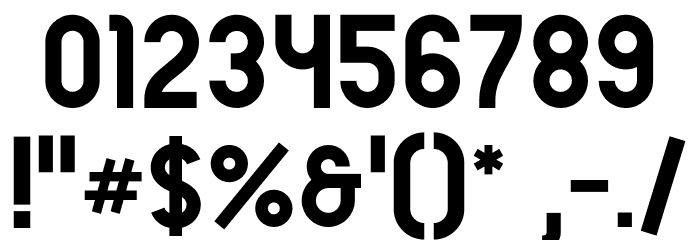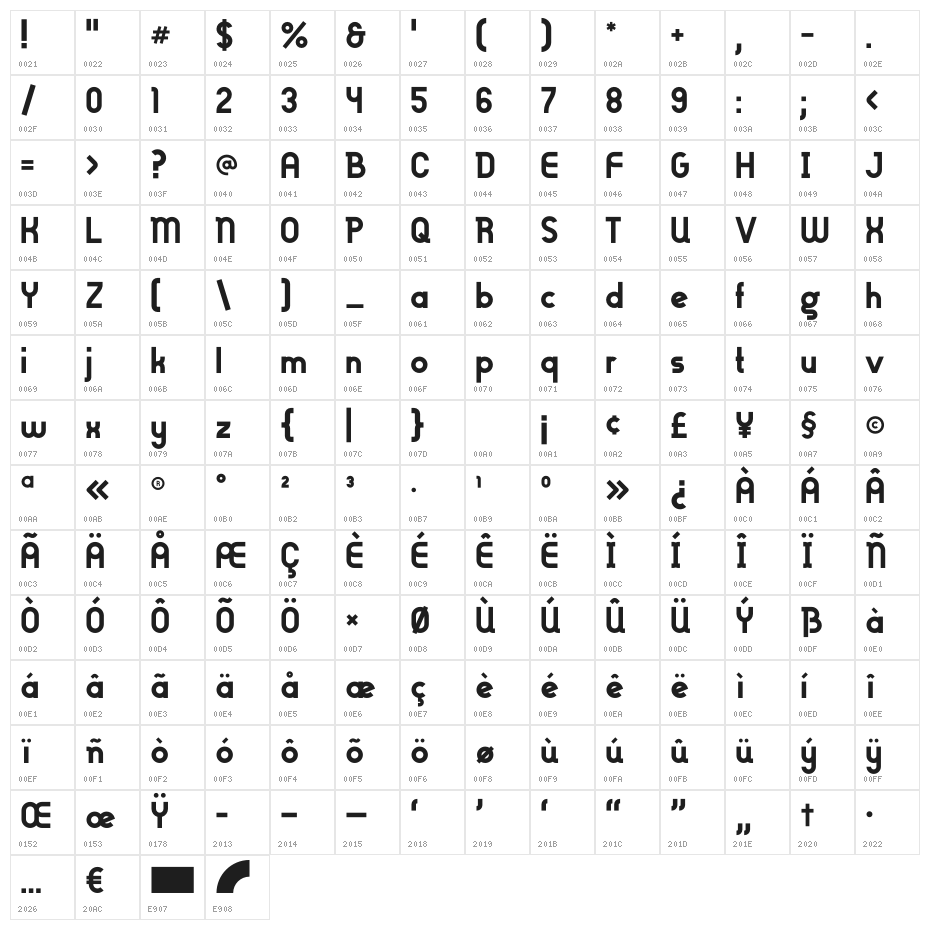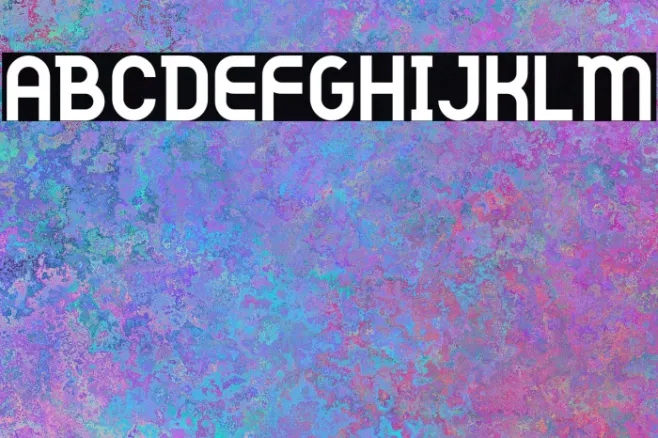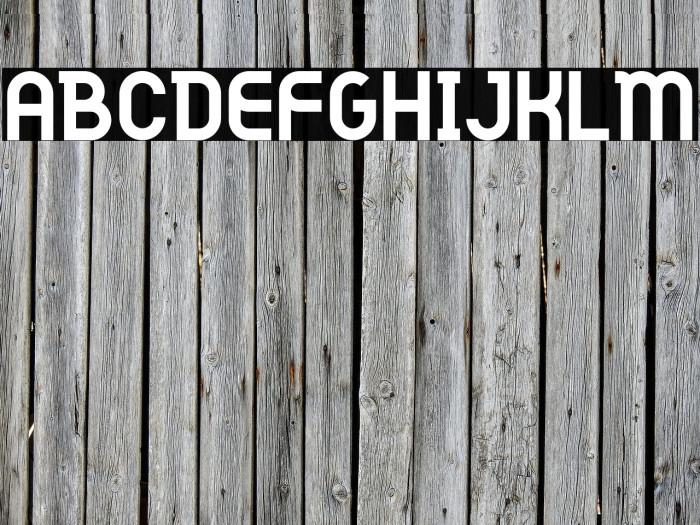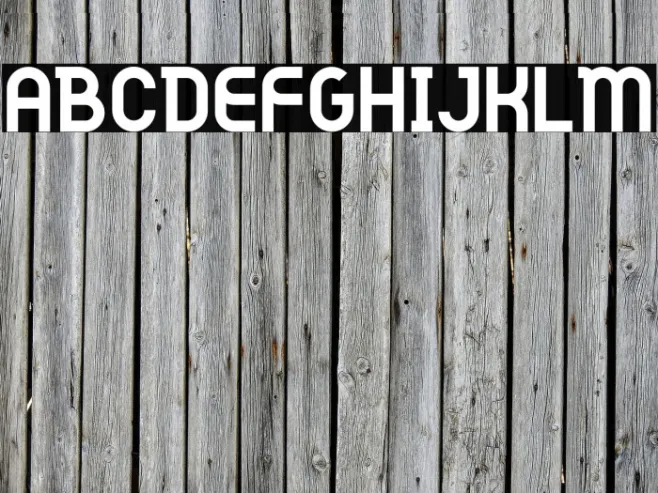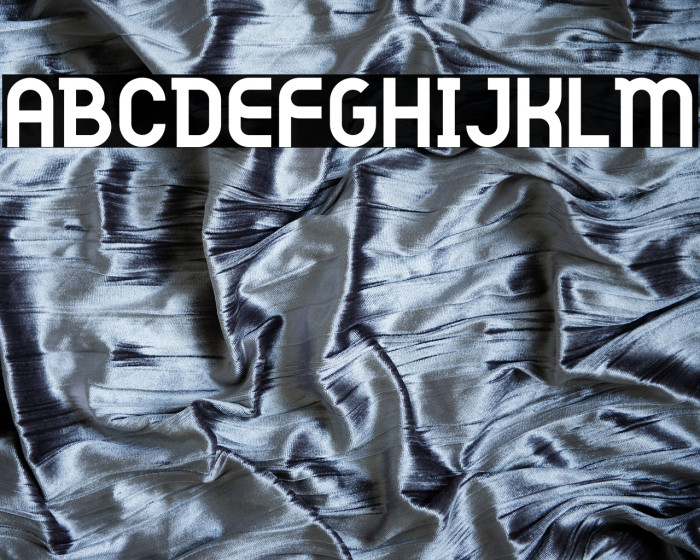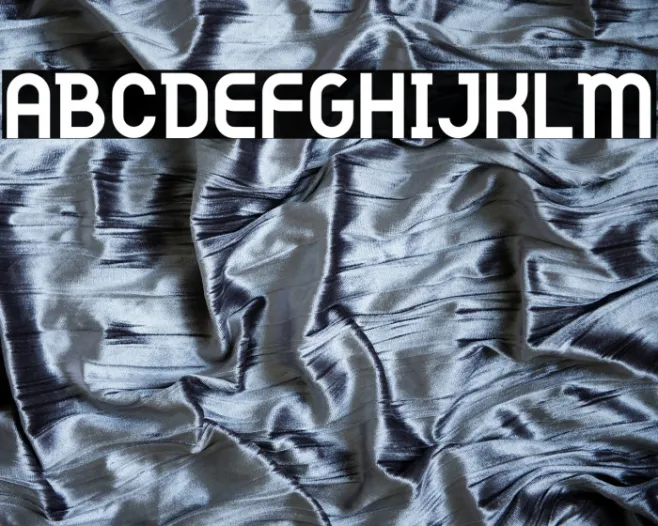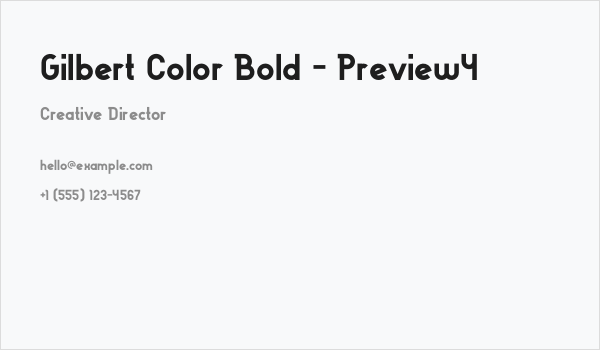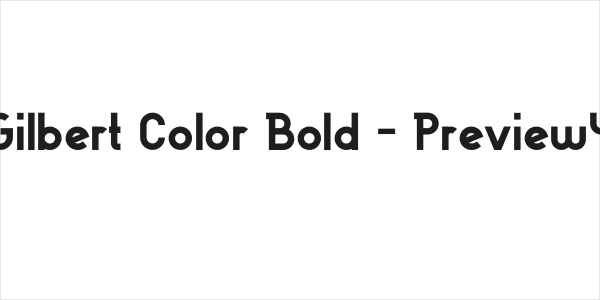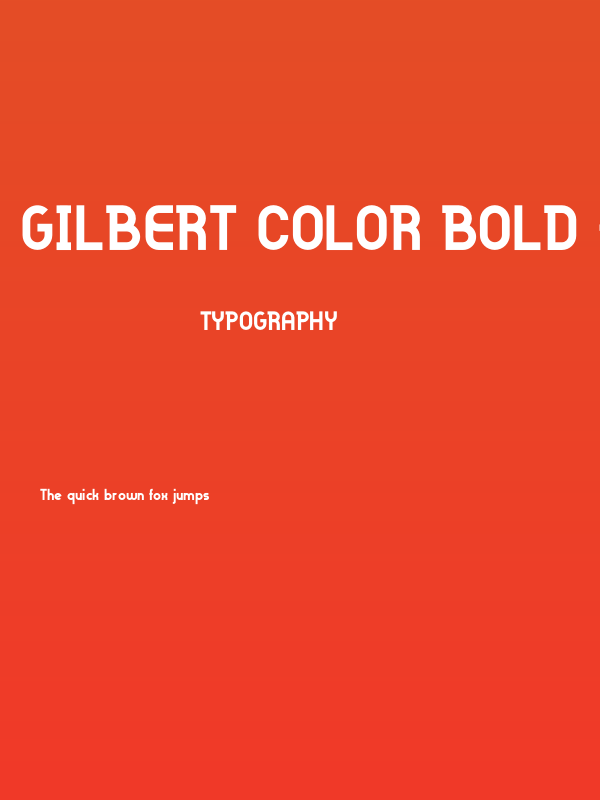
Gilbert Color Bold - Preview4 Font
Gilbert Color Bold - Preview4 Description
This font features a bold and modern sans-serif style with clean, geometric lines. The characters are uniform in width, giving a balanced and structured appearance. The uppercase letters are slightly taller than the lowercase, maintaining a consistent and cohesive look. The numbers are clear and easy to read, with a similar width to the letters, ensuring uniformity across the typeface. Special characters are well-integrated, matching the bold and straightforward design of the alphabetic characters. The overall style is contemporary and versatile, suitable for a variety of design applications.